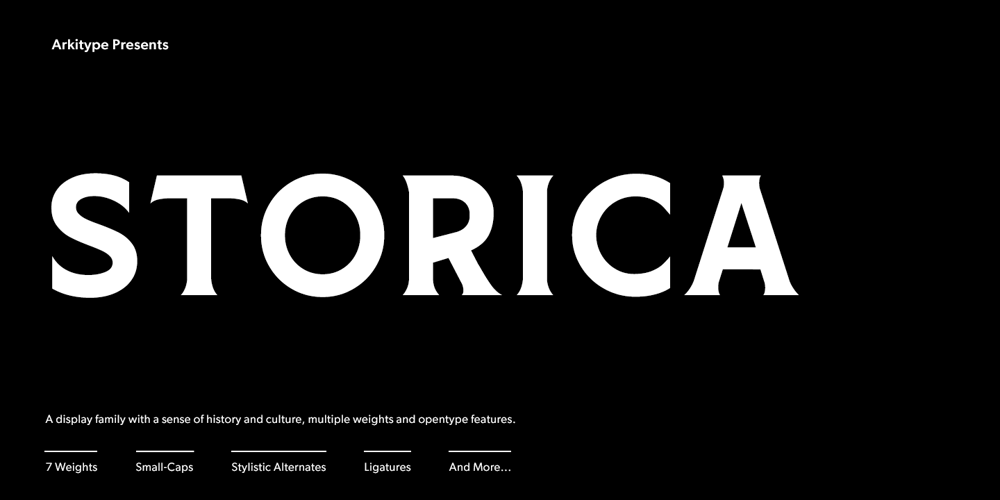
Storica
Storica font
Storica Font Family was designed by Andrew Footit and published by Arkitype. Storica contains 9 styles and family package options. Storica is a display typeface with roman style serifs that create a sense of history and culture. The Storica family has 7 weights as well as a Heavy Rough and Heavy Hand version that give you an option for a more rustic or hand style approach to you projects. The character set is expansive and has a wide range of language support. Storica has a great selection of Stylistic alternates, ligatures, small-caps, old-style numbers and more packed into the opentype features.This typeface is an excellent choice for branding, particularly in the beverage industry, it is also perfect for typographic layouts for magazines, poster, books etc. Storica has been designed to make it easy for a designer to create beautiful typography with creative flair quickly and easily.